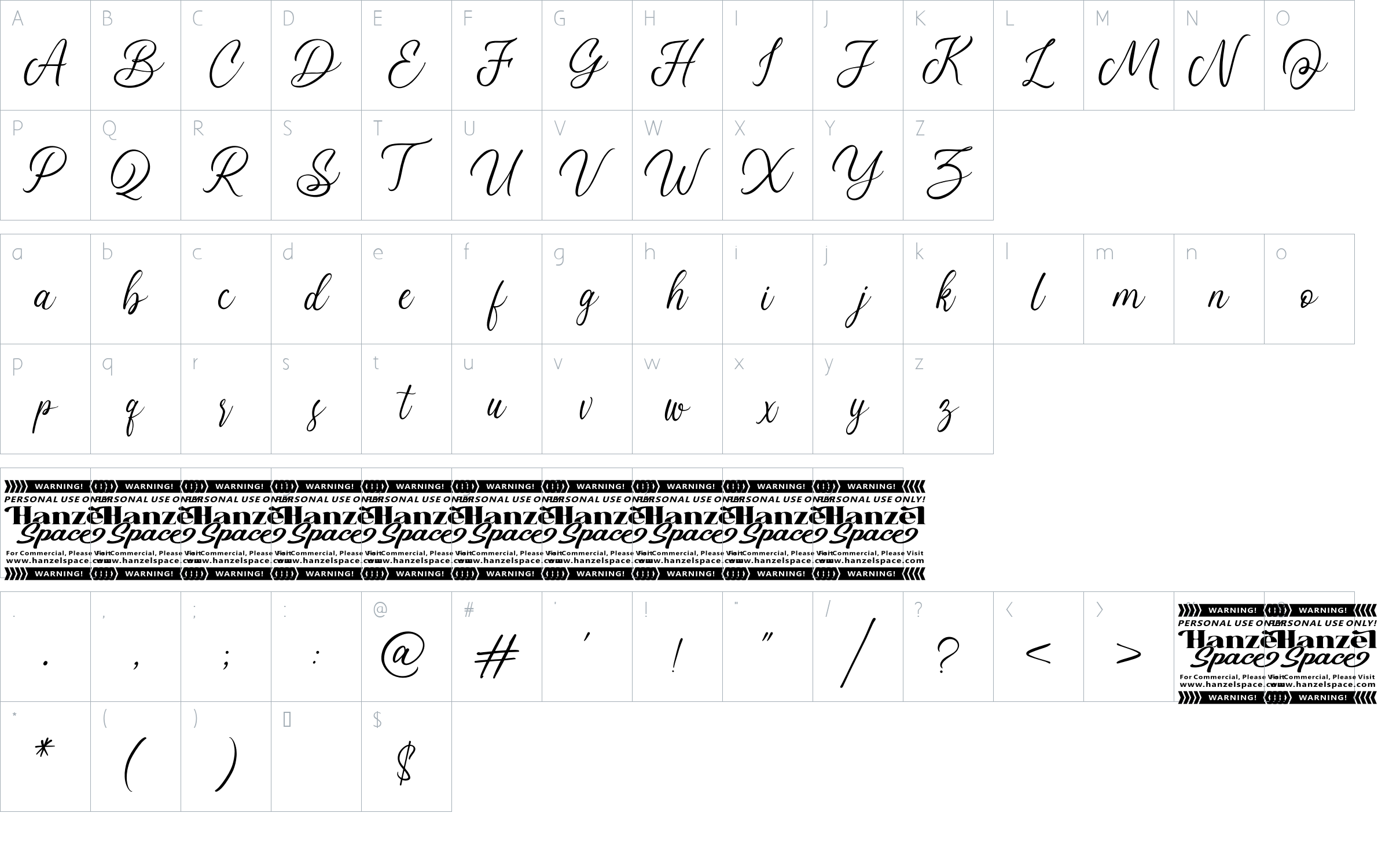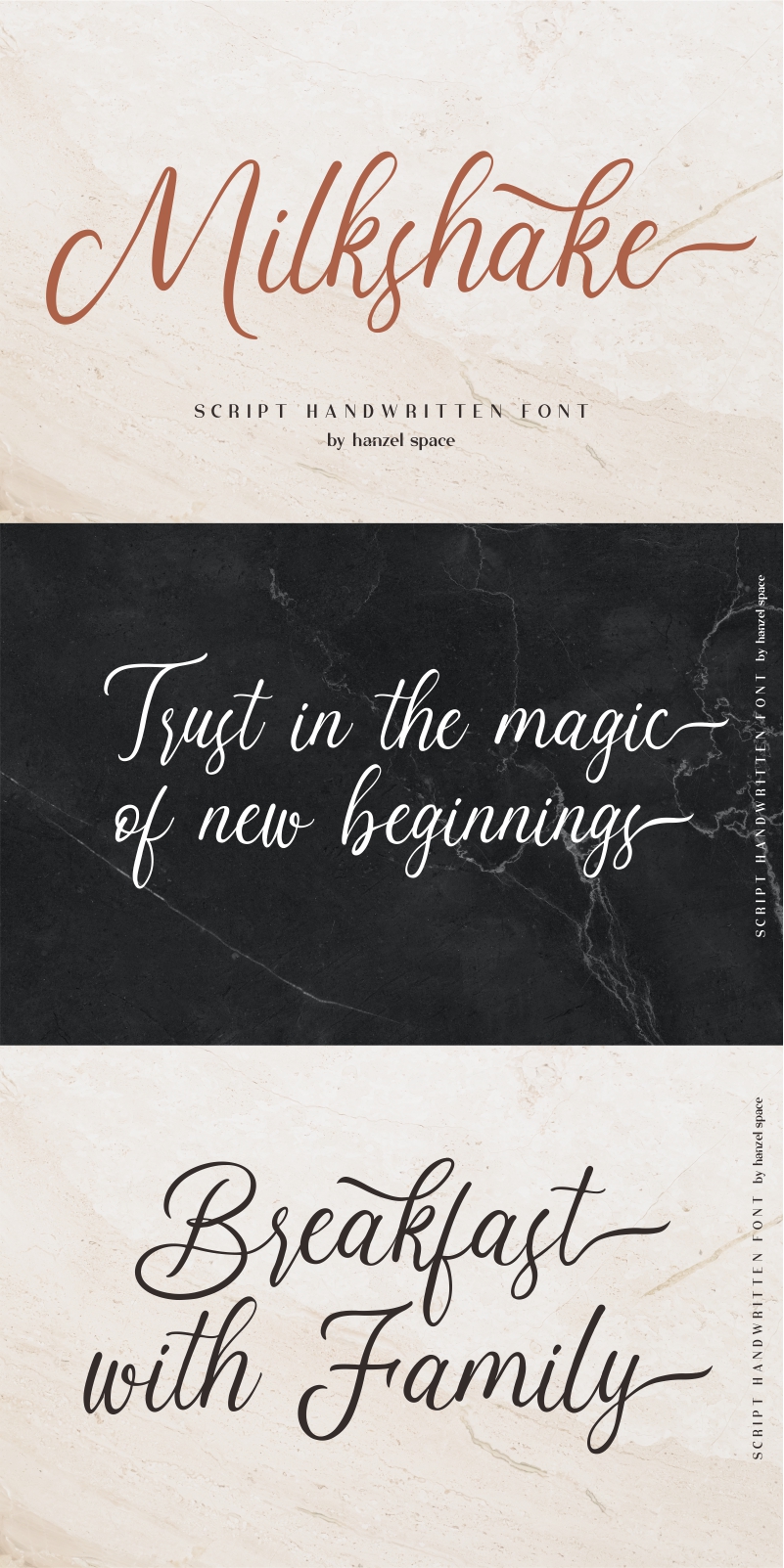
About Milkshake Script Font
Introducing Milkshake Script Font
Milkshake Script Font with contemporary, sophisticated accents. It is perfect for branding, wedding invites, tagline, cards, maybe for label and logo.
Milkshake includes full set of gorgeous uppercase and lowercase letters, numerals, a large range of punctuation and ligatures. It expresses beauty of handwriting. What you get
• Standard Ligatures
• Numerals and Punctuation